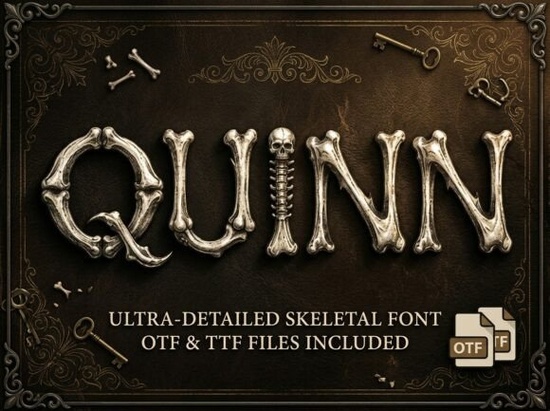
If you are designing a horror movie poster or a heavy metal album cover, typography needs to do more than just spell words it needs to set the mood. The Quinn Font is an ultra-detailed skeletal typeface built exactly for this purpose. Instead of standard strokes, the letterforms are constructed from weathered bones, vertebrae, and jagged joints. This gives your text a realistic, aged-calcium texture that instantly communicates a dark-fantasy vibe to your audience.
What makes a skeletal font stand out in horror design?
When creating scary aesthetics, standard spooky fonts often rely on dripping blood or scratchy textures. This typeface takes a different route by focusing on anatomical realism. The high-impact silhouette works beautifully at large sizes, making it perfect for main titles. If you are exploring different scary typefaces, you might pair it with a dripping red display typeface for secondary text, but this bone-based design provides the heavy, structural foundation your layout needs. The realistic joints and weathered surfaces add a layer of grit that flat vector styles simply cannot match.
How do print-on-demand sellers use bone-themed typography?
Skeletal designs are incredibly popular in the print-on-demand space, especially for apparel and accessories. T-shirts, mugs, and stickers featuring skull and bone motifs sell consistently well in gothic, metal, and Halloween niches. Because the letterforms are so detailed, they look fantastic on dark-colored garments. For a softer, retro Halloween vibe, you might choose a chunky retro display typeface for cute pumpkin designs, but for the hardcore metal crowd, the jagged edges of this skeletal font hit exactly the right note. It gives merchandise an authentic, underground feel that fans of heavy music actively look for.
Can small businesses use dark-fantasy fonts for branding?
Yes, but it requires careful placement. Independent gothic branding, tattoo parlors, escape rooms, and specialty Halloween shops can use this style to establish a strong visual identity. The key is restraint. You should use the skeletal lettering strictly for your logo or main storefront banners. If your business needs a cleaner look for everyday communications, you should keep the bony font for headers and use something like a clean modern display typeface for readable paragraphs and body copy. This contrast ensures your brand looks professional while still maintaining its dark, thematic edge.
What are the best projects for memento-mori social media headers?
Social media headers, YouTube thumbnails, and podcast covers benefit greatly from high-contrast typography. A memento-mori theme relies on the visual reminder of mortality, making skeletal text a literal and figurative fit. For a podcast cover, you might want to mix this with a sleek double-line modern typeface to keep the episode titles legible. Or, if you are designing a digital graphic for a neon sign, a glowing marquee display typeface can create a cool, eerie contrast against the dark, textured background. The versatility of the font allows it to anchor both digital and print layouts effectively.
How should you format text with detailed bone letterforms?
Working with highly textured typefaces requires a slightly different approach than using standard clean fonts. Here is a practical checklist to ensure your final design looks professional:
- Keep it large: The intricate bone details get lost at small sizes. Use it strictly for main titles, logos, and large headers.
- Watch the contrast: Pair the textured letters with a solid, plain background so the aged-calcium effect stands out clearly.
- Limit your text: Because the letterforms are so complex, stick to short phrases or single words to maintain readability.
- Check the kerning: The jagged joints can sometimes make letters look too close together, so adjust the spacing manually if needed.
Before you finalize your layout, always print a test page at actual size or view it on a mobile screen to ensure the vertebrae details remain crisp and clear.